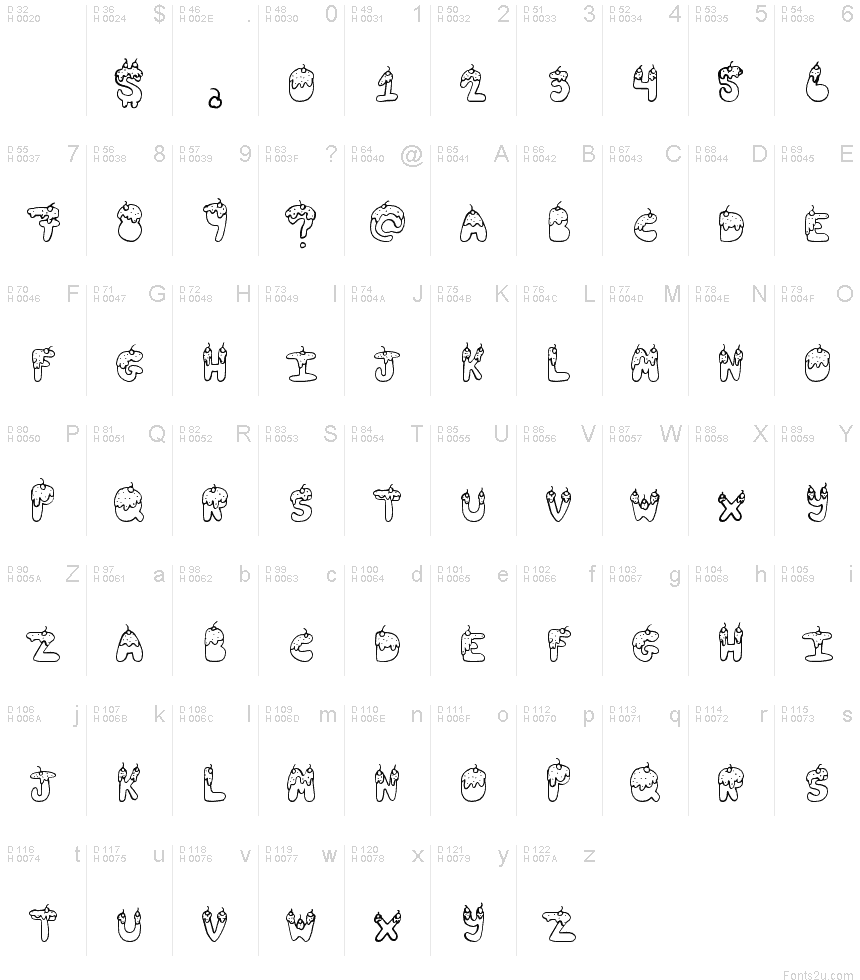
Tasty Sundae from Xerographer Fonts is a free cartoon display font modeled on dripping ice cream and frosted treats. Its rounded, uneven letters wear scalloped toppings, scattered sprinkles, and tiny cherry stems. Loose outlines give the confectionery forms a lively, hand-drawn wobble.
Children are its most obvious audience. The lettering turns ice cream packaging and party invitations into part of the dessert theme. Sweet-shop signs, activity books, and summer event posters also benefit from the edible shapes and cheerful decoration.